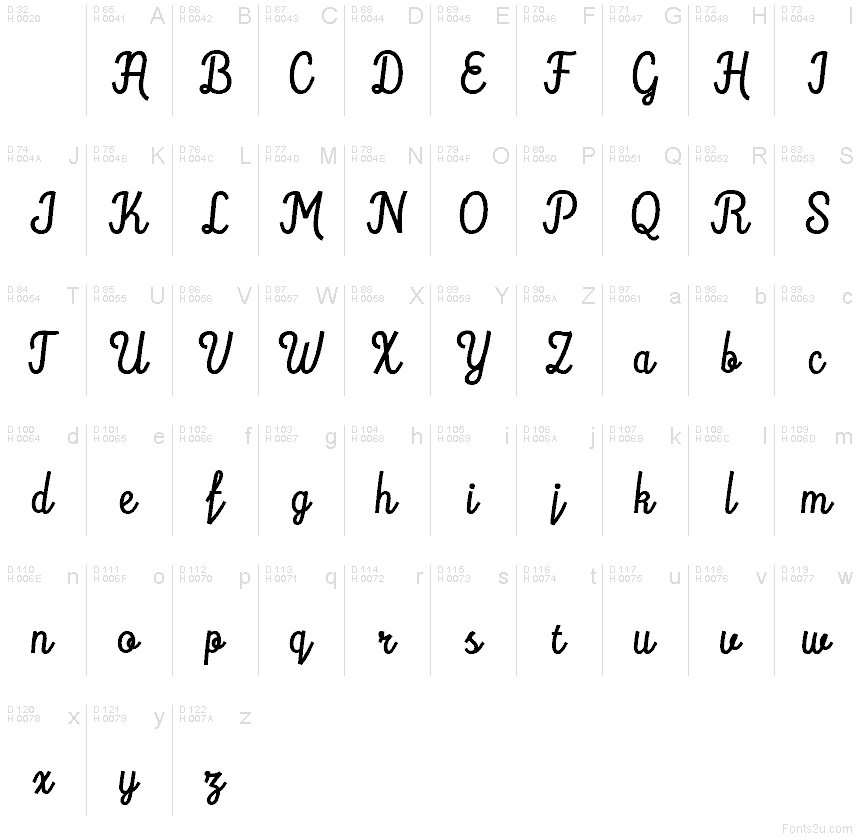
CS Alicent Regular Demo
CS Alicent font by Craft Supply Co. is a modern, free script font that feels elegant with its smooth flow and personal touch. The typeface has its glyphs designed with great care to create the perfect handwritten feel you’ve been after. Any text will be instantly elevated into an eye-catching one.
Since CS Alicent is a free handwritten font, your choices of use range from branding and packaging to advertising designs and invitation cards for weddings and birthdays. Add it for a special section or titles in magazines, book covers, websites or social media content wanting to impress followers also get served!